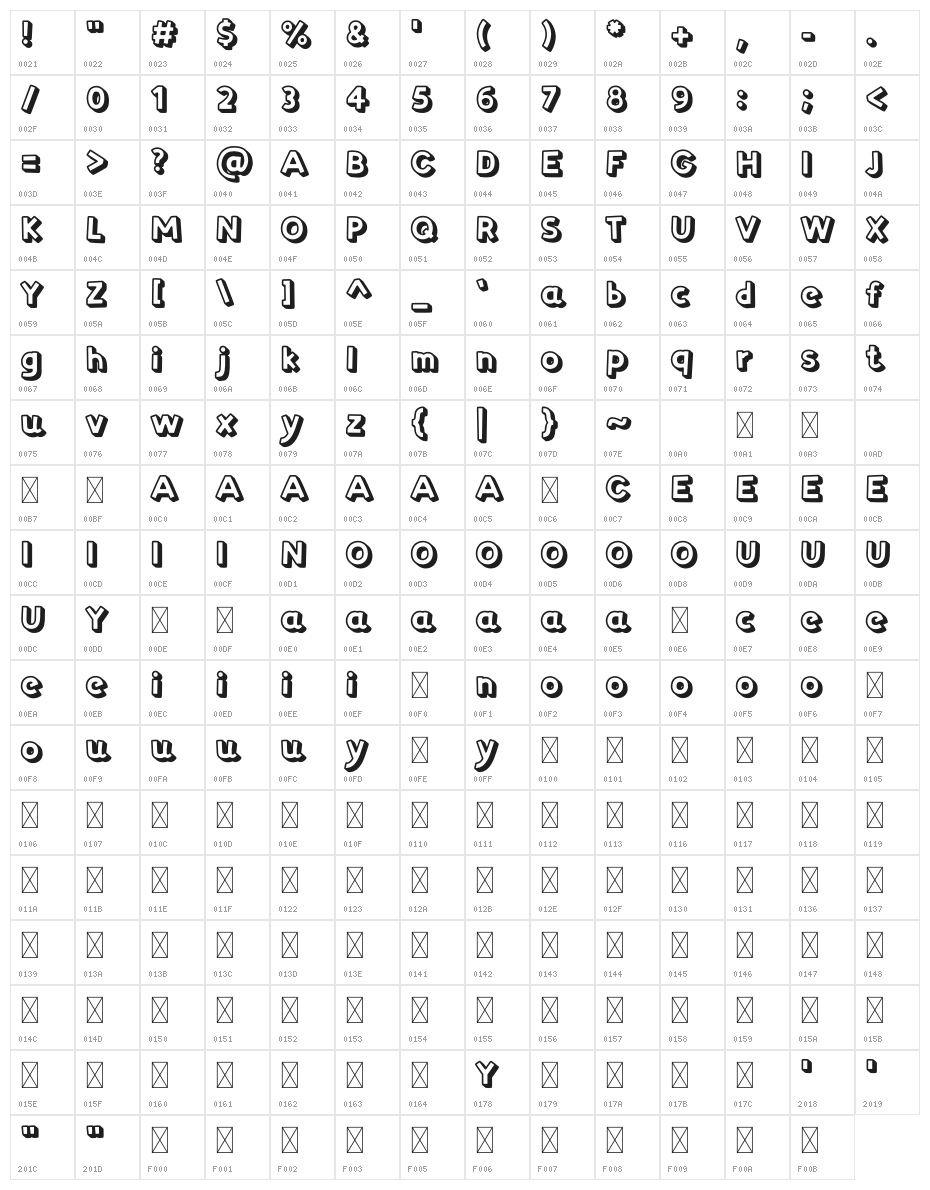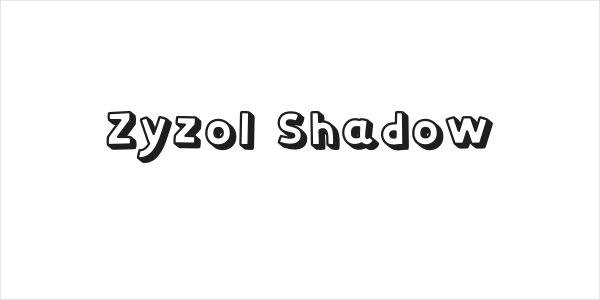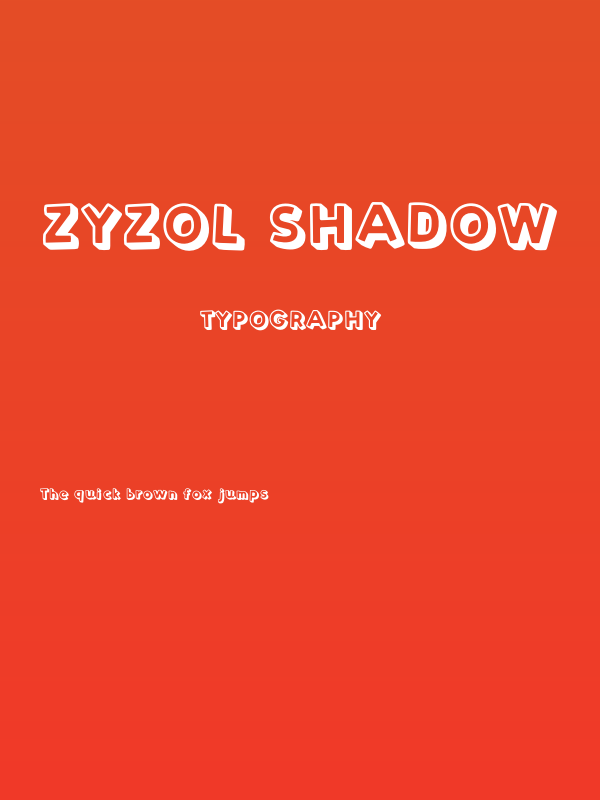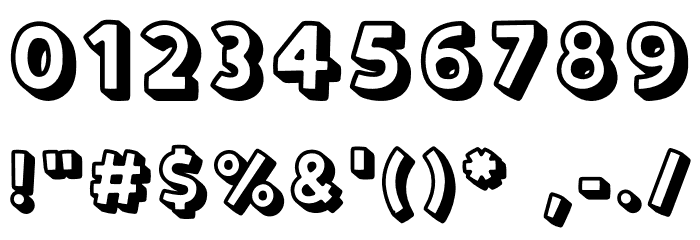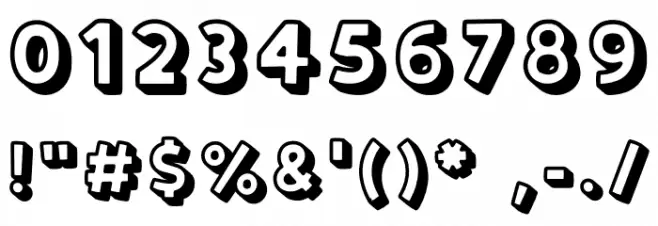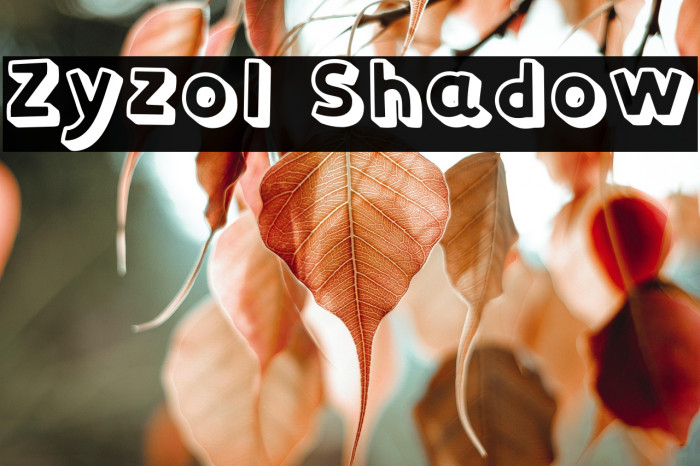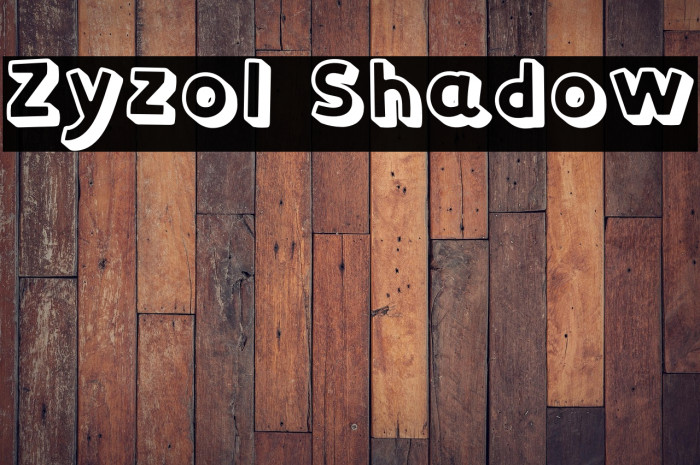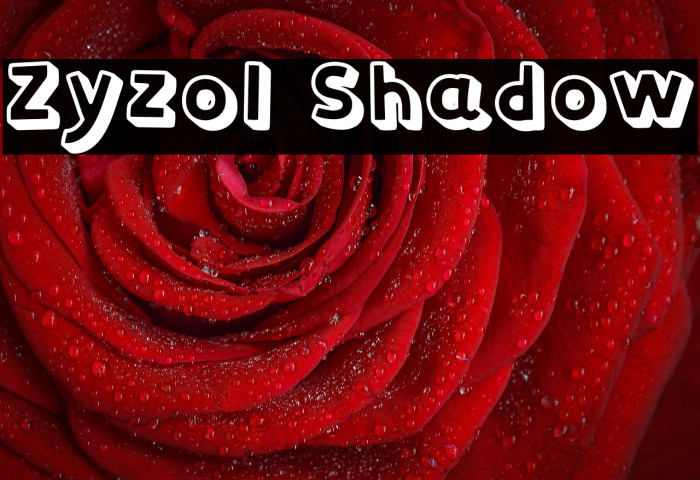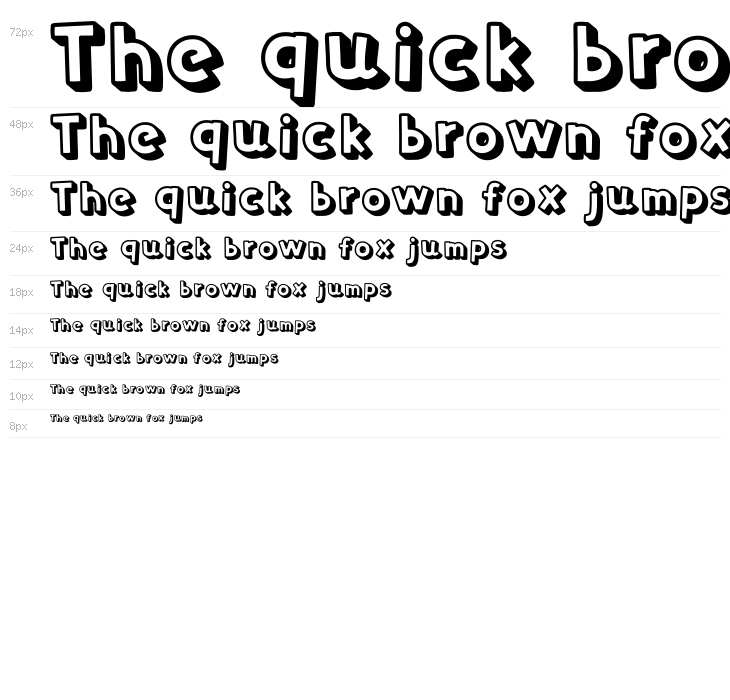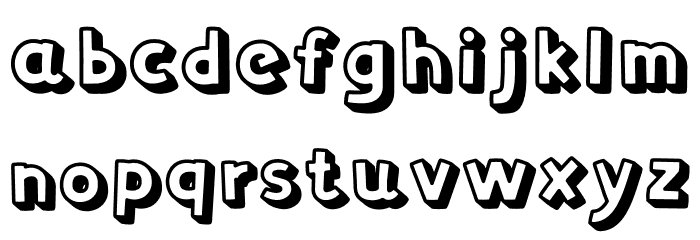
Zyzol Shadow Font
Zyzol Shadow Description
This font features bold, playful characters with a distinct shadow effect that gives a three-dimensional appearance. The letters are rounded and thick, creating a friendly and approachable look. The shadow adds depth, making it stand out on various backgrounds. The uppercase and lowercase letters maintain a consistent style, with the shadow consistently applied to the right and slightly downward. Numbers and special characters follow the same design principles, ensuring uniformity across all glyphs. This font is ideal for eye-catching designs where a sense of fun and creativity is desired.
| Overall Style | Playful, Creative |
| Proposed Projects | Ideal for children's books, playful branding, posters, and creative advertisements. |